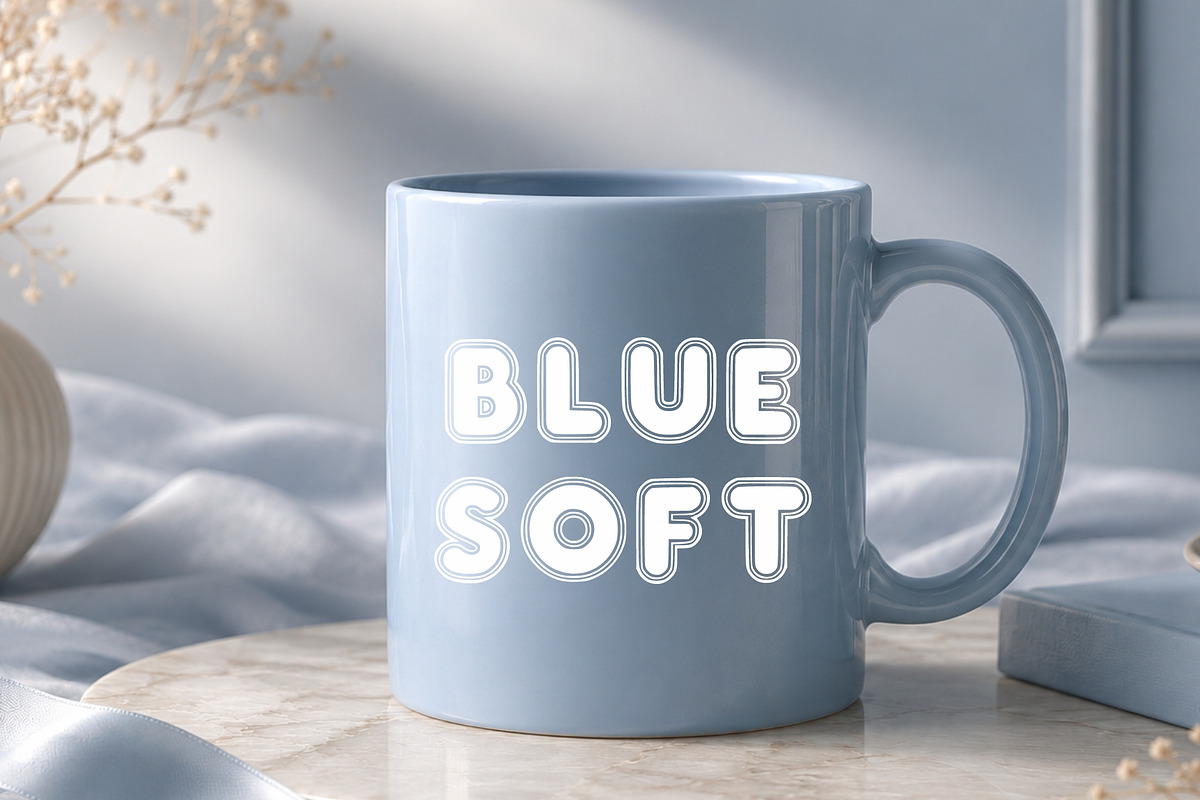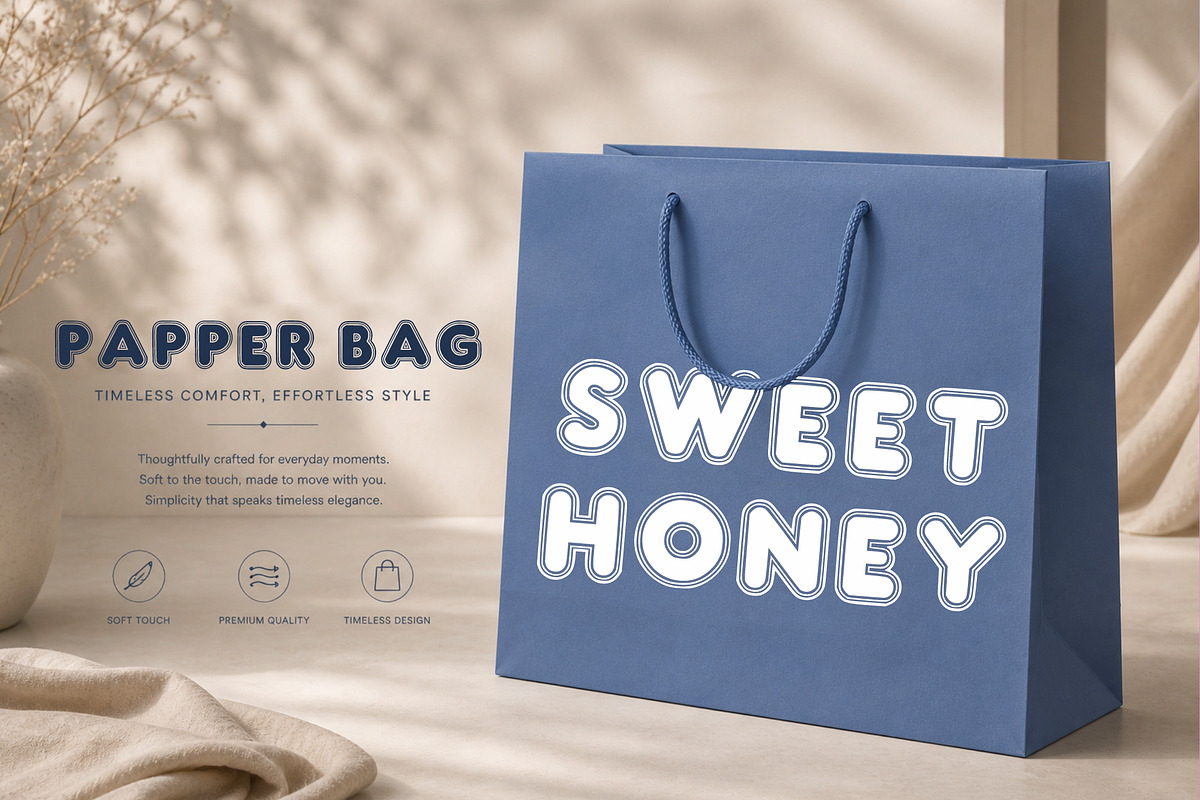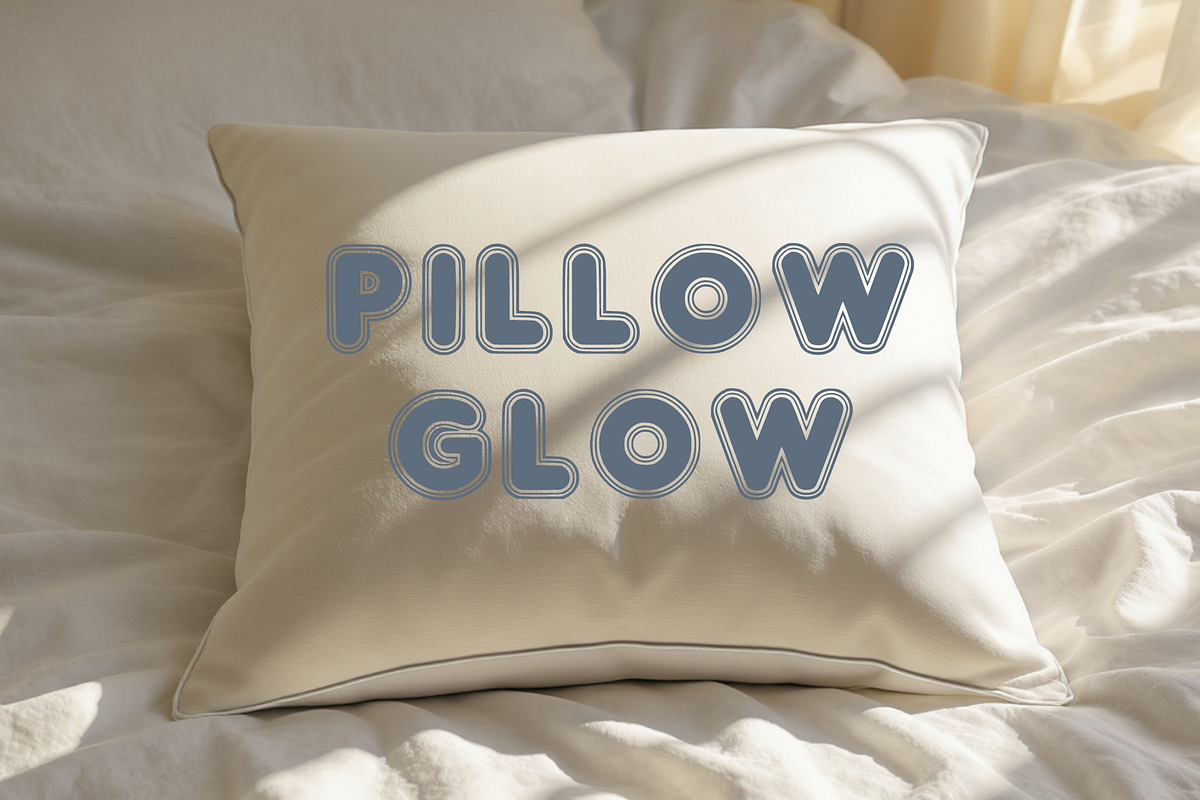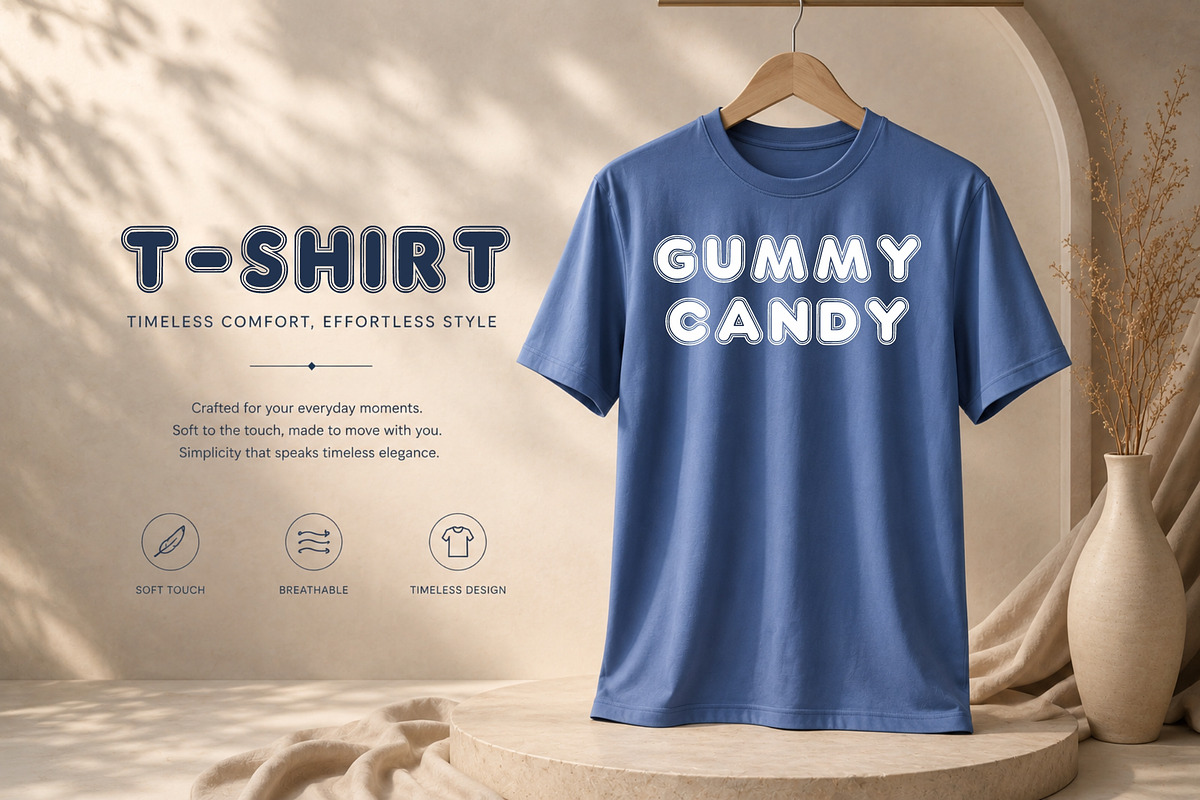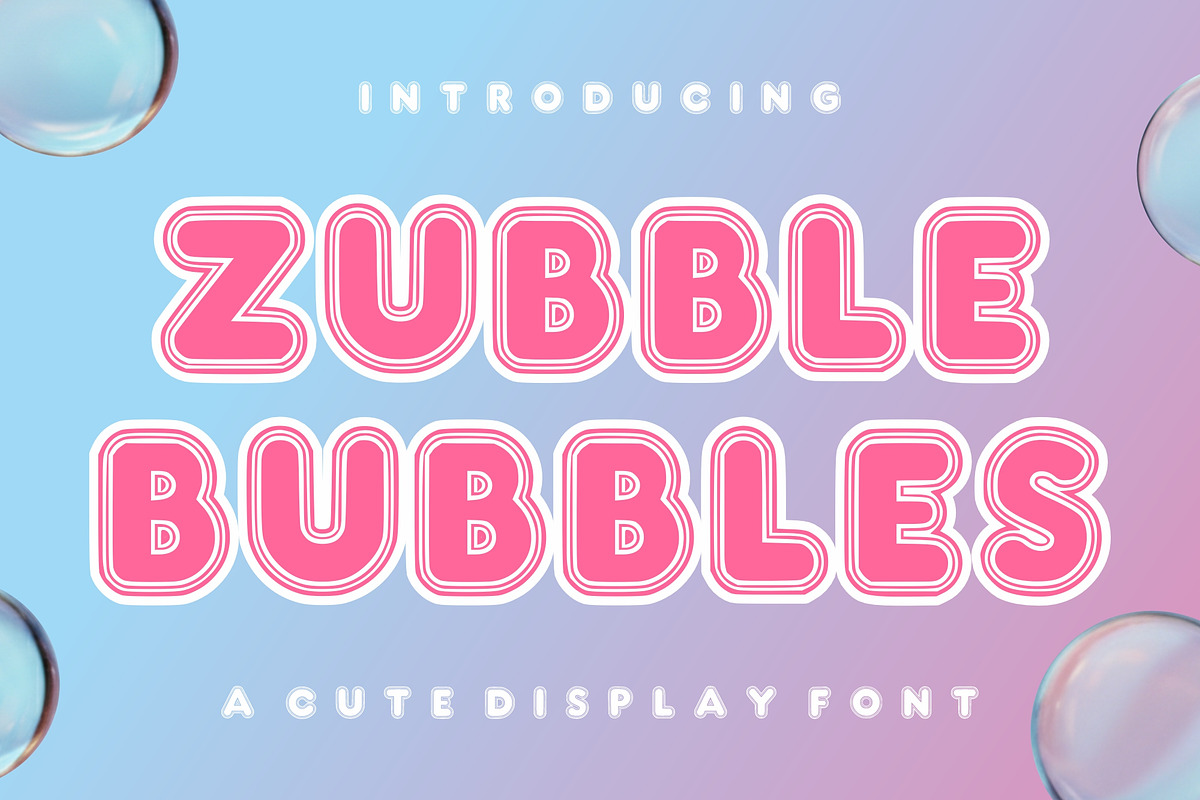
Zubble Bubbles
Zubble Bubbles is a cute and eye-catching display font inspired by soft bubbles and pastel aesthetics. With its rounded shapes, layered outline style, and bold presence, this font is perfect for creating joyful and vibrant designs.
Ideal for kids-themed projects, branding, packaging, social media graphics, posters, and more, Zubble Bubbles brings a fun and friendly vibe to any creative work. Its bubbly letterforms make it especially great for standout titles and headlines.
Add a splash of sweetness and charm to your designs with Zubble Bubbles!
Key Features Uppercase letters Numbers & punctuation Bold bubble style Layered outline effect Fun and playful look Easy to read for display purposes